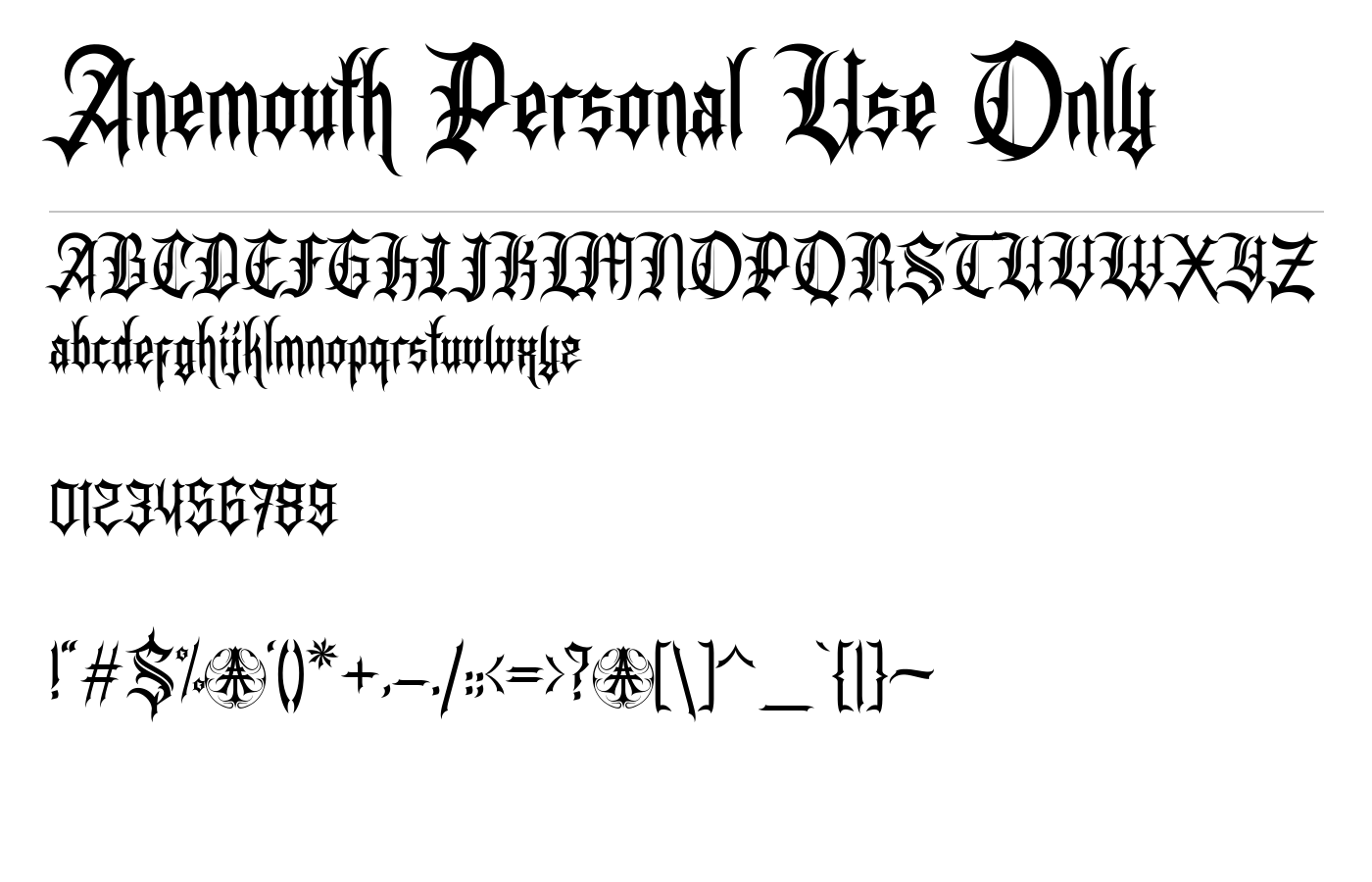
Anemouth Personal Use Only is a bold, blackletter-style font with sharp, dramatic strokes and high contrast between thick and thin lines, evoking a gothic and historic feel. Its elaborate letterforms and narrow width give it a strong, ornate presence that suits decorative uses like logos, posters, or branding with an edgy, vintage vibe. This font works best in display settings where its intricate details can stand out and create a striking visual impact.
| Font family | Anemouth Personal Use Only Font |
| Designer | TypeAliens |